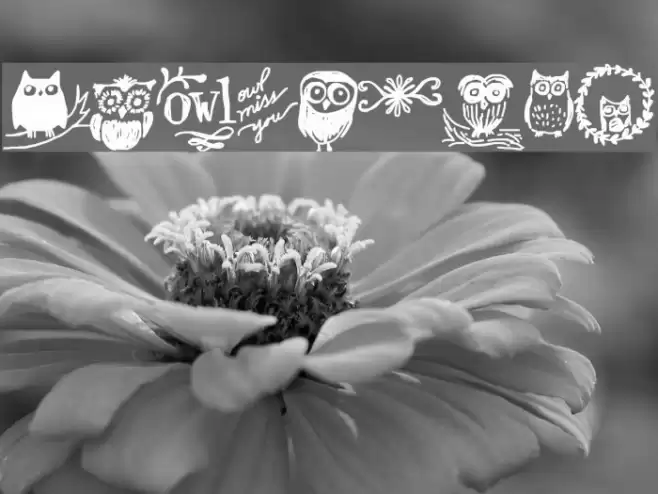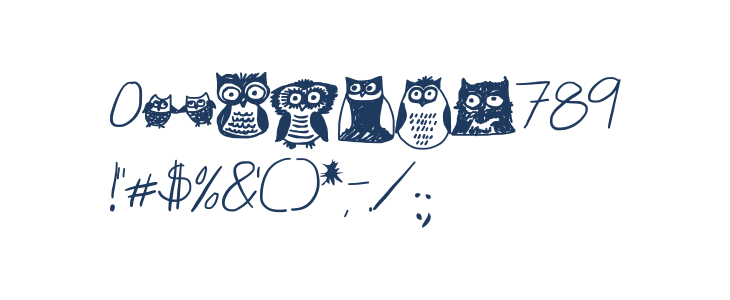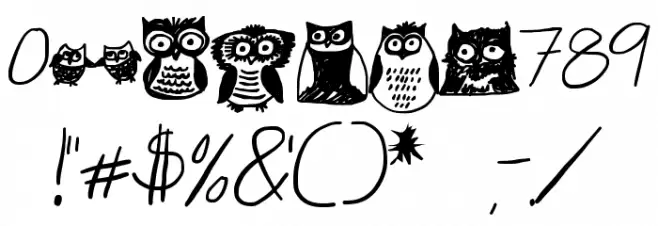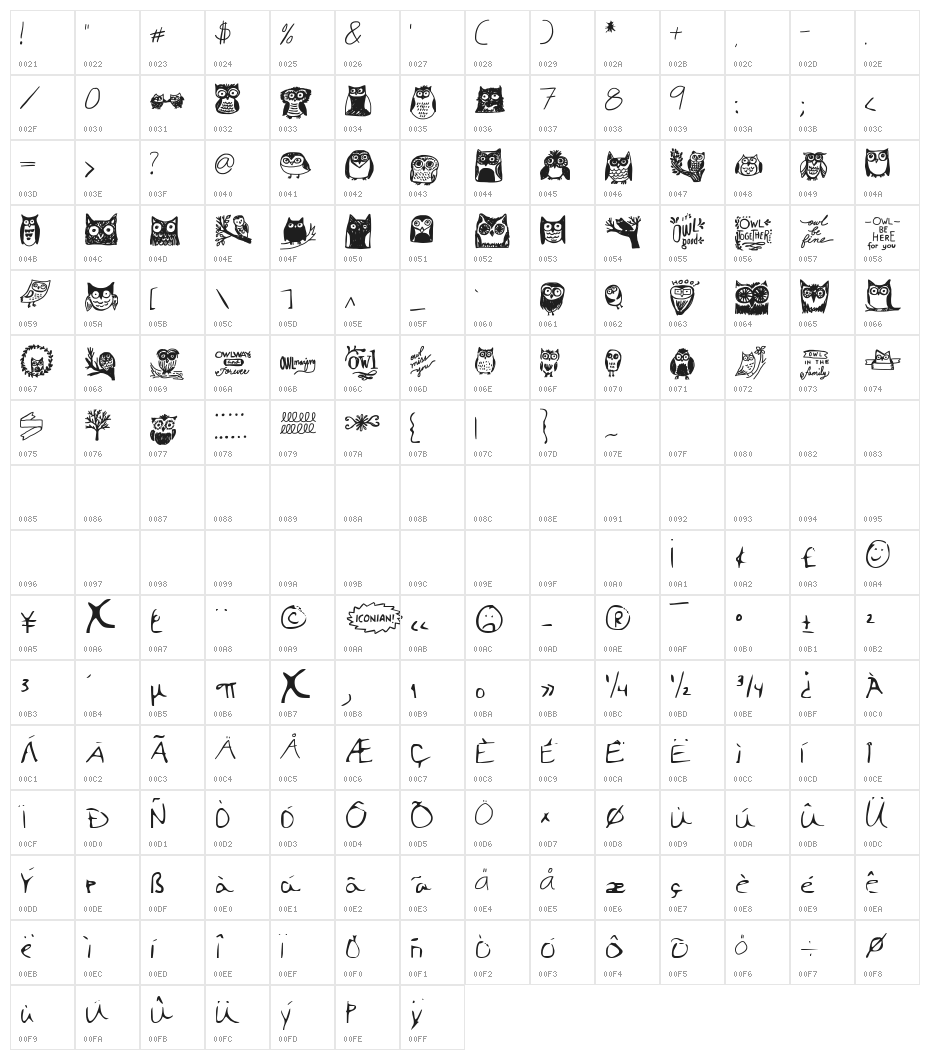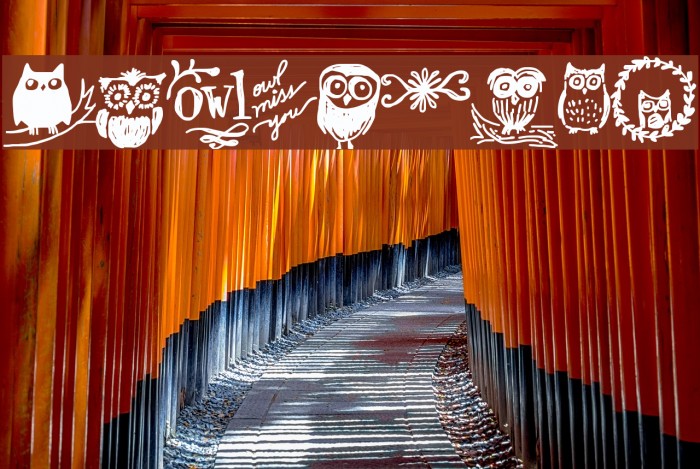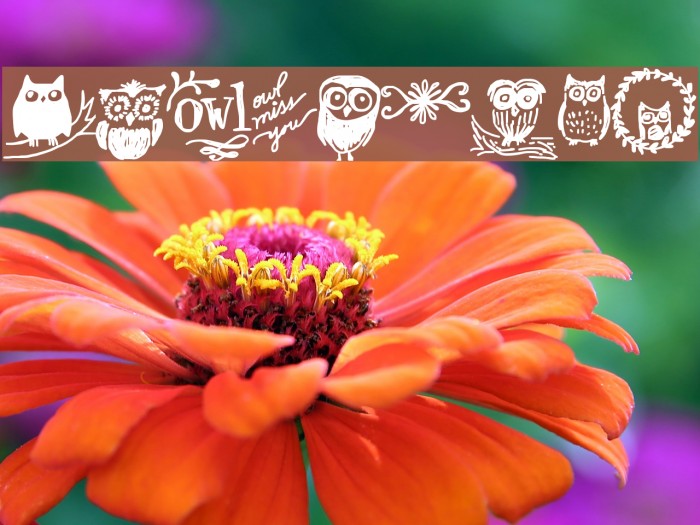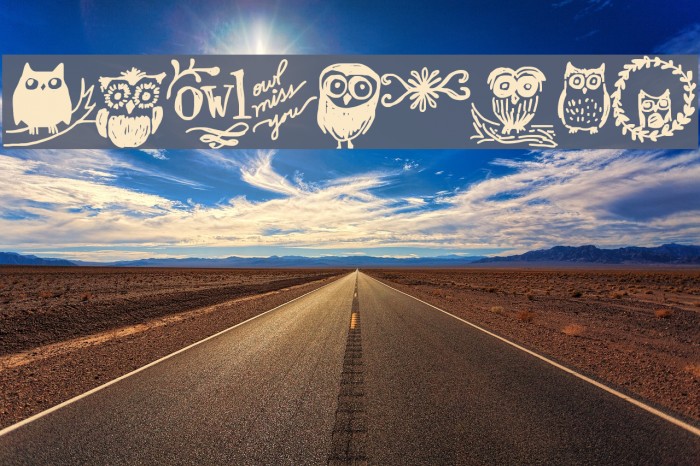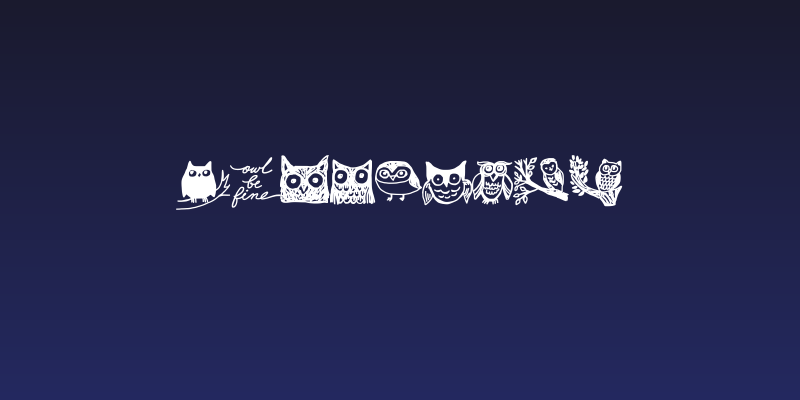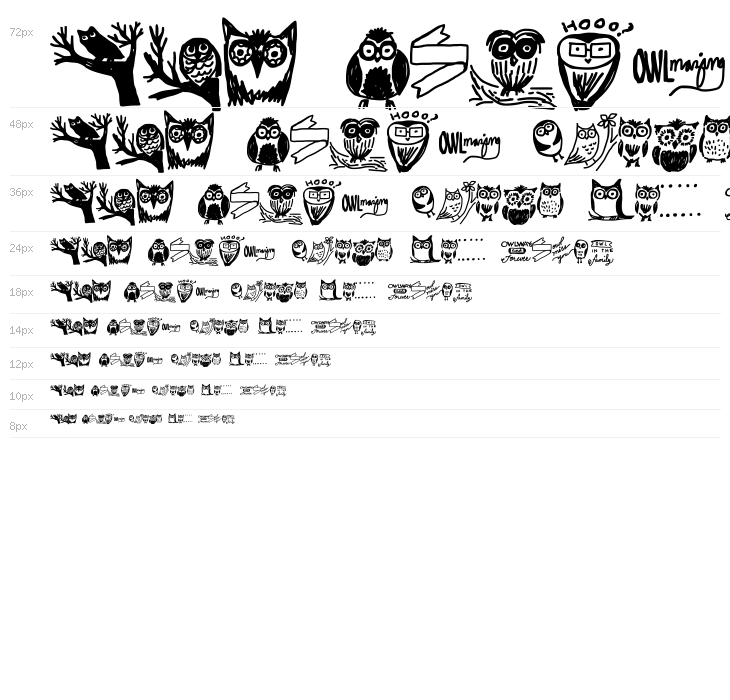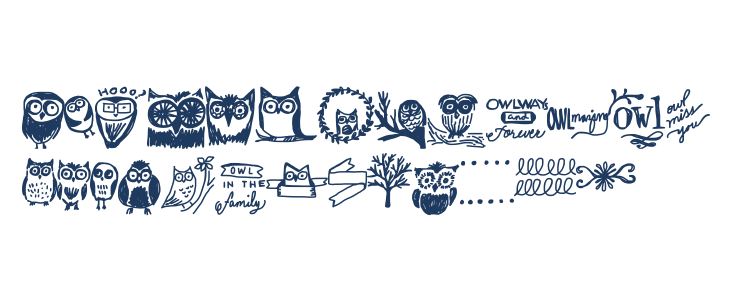
Owlmazing Font
Owlmazing Description
This whimsical and playful design features a variety of charming owl illustrations, each with its own unique personality. The style is hand-drawn, with a mix of detailed and simplistic elements that create a lively and engaging appearance. The characters are expressive, with large eyes and quirky features, making them ideal for creative and fun projects. The overall look is decorative and artistic, with a touch of humor and warmth. The design includes a range of owl-themed graphics, perfect for adding a touch of nature and whimsy to any project.
A playful, hand-drawn design featuring charming owl illustrations from Dingbats fonts.
- Proposed Projects: Ideal for children's books, greeting cards, educational materials, and whimsical branding.
- Use Case: Logos, Illustrations, Decorative elements